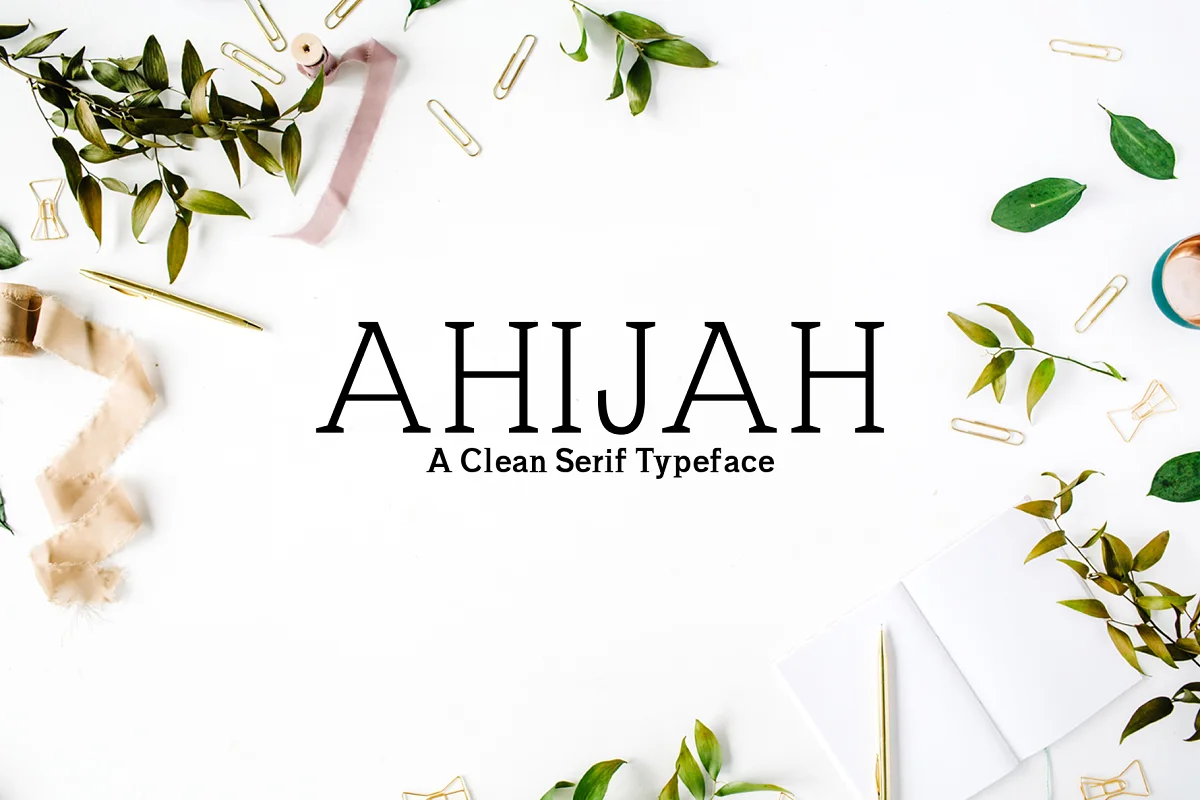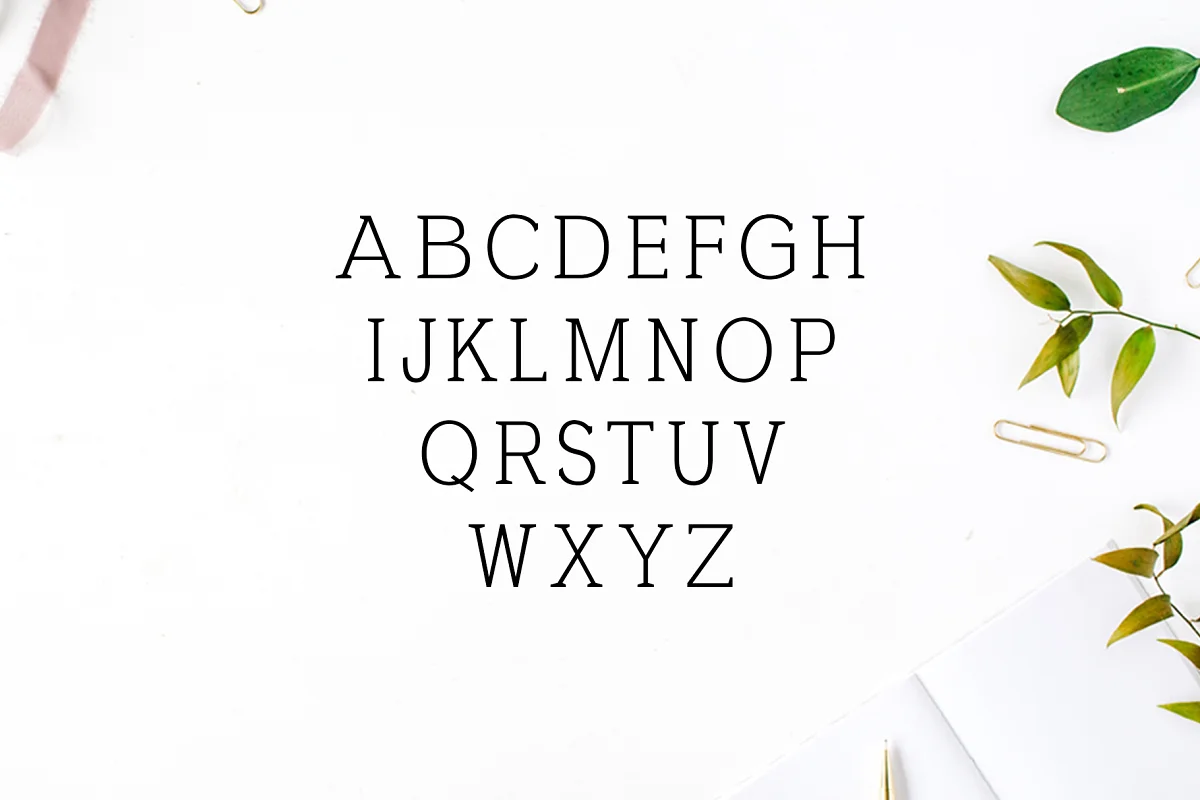
About the Ahijah A Clean Serif Font
Ahijah A Clean Minimal Serif Font Family is a set of 3 weights font families. It is good for making creative templates and stationary. Ahijah typeface suits best for minimal / decoration, logos, headlines, banners, and templates, etc.
It looks gorgeous in all caps with a wide-set spacing if you want to try a classy look, or beautiful on its own in capital and lowercase letters for something completely timeless.
- Regular, Thin, and Bold Weights
Ahijah Font Features:
- Uppercase Letters
- Lowercase Letters
- Numbers & Punctuation
- Non-English Characters ( Latin Supplement + Latin Extended-A)